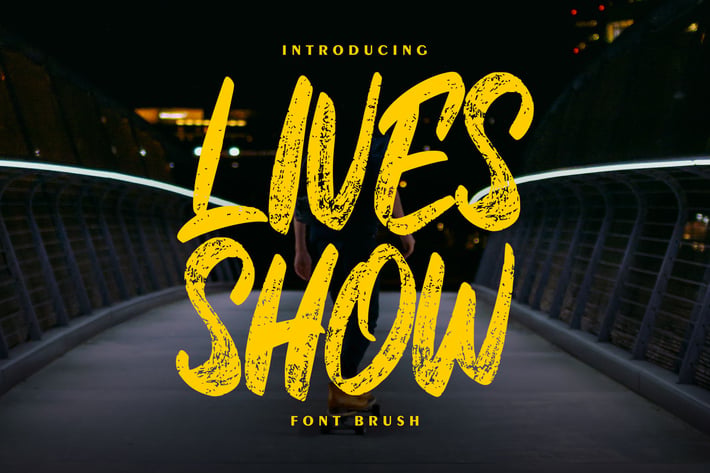
Lives Show | Brush Font
Lives Show | Brush Font with a calligraphy style, So beautiful on invitation like greeting cards, branding materials, business cards, quotes, posters, and more!